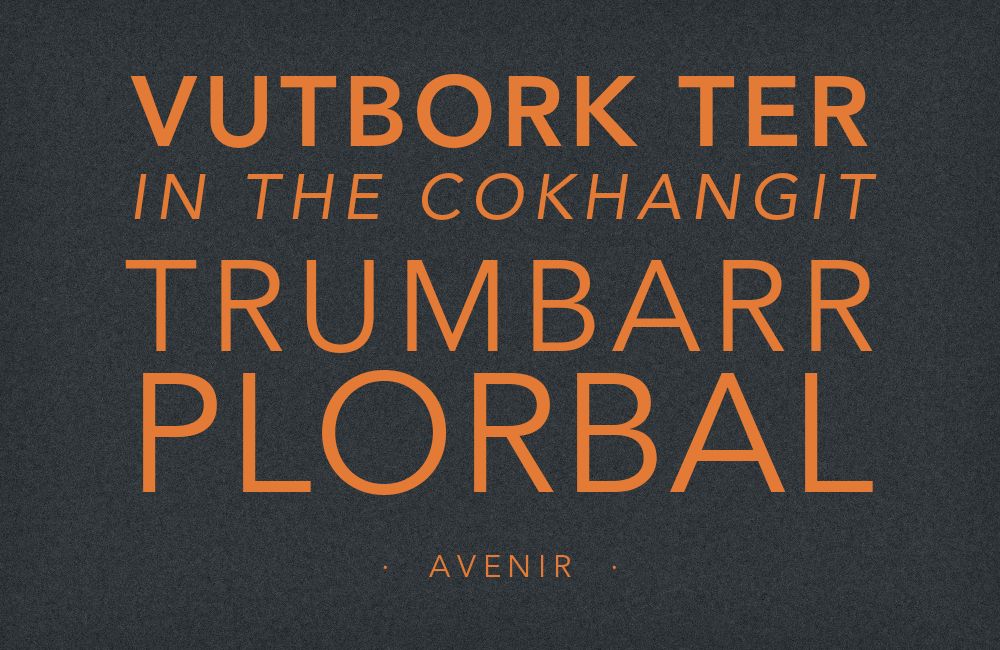
Avenir pairs great with Garamond, Georgia and Baskerville. All 15 pairings are shown below in real rendered specimens, with the reason each one works.
What fonts go with Avenir? Adrian Frutiger’s geometric sans is warm where Futura is severe and disciplined where humanist sans-serifs get chatty — a balance that makes it unusually easy to live with and unusually easy to pair badly.
Frutiger released Avenir in 1988, and the name is the point: avenir is French for “future,” an open acknowledgement of Futura sixty years earlier. But where Futura chases the circle and the straight line without compromise, Avenir bends. Its verticals are fractionally heavier than its horizontals, its ascenders are shortened for setting text, and its lowercase carries just enough optical correction to stay comfortable at paragraph sizes. The result is a geometric sans you can actually read at length — the compromise Frutiger spent a career refining, first in Univers and later in the signage face that carries his own name.
That reasonableness is exactly what makes pairing tricky. Avenir has no strong flavour to react against, so partners chosen for contrast alone tend to look arbitrary beside it. The combinations that work do one of two things: they supply the historical warmth Avenir’s engineered geometry deliberately leaves out, or they share its underlying circular skeleton and differ only in detail. Here are 15 fonts that pair well with Avenir, each chosen for what it brings to that particular problem.
1. Garamond
An old-style serif with calligraphic stroke variation, angled stress and small humanist proportions — everything Avenir’s engineered circle-and-line construction deliberately leaves out. That is precisely why it works. Garamond supplies typographic warmth that goes back to the sixteenth century as body text while Avenir handles anything structural: headings, navigation, labels, data. The pairing is a standard for a reason, and it survives at almost any scale because the two faces are never competing for the same job. Best in book-like contexts — long essays, catalogues, institutional print — where a reader settles in.
2. Georgia
Matthew Carter drew Georgia for screens at a time when screens were terrible, and the decisions still hold: chunky serifs that survive rasterisation, a large x-height that keeps small text legible, and open apertures that resist blurring. Paired with Avenir it produces a clean, undramatic division of labour — Avenir for interface chrome, headings and navigation, Georgia for the paragraphs. There is nothing showy about this combination, which is the point. It is a workhorse pairing for blogs, documentation and content sites.
3. Baskerville
Baskerville is a transitional serif: crisper than Garamond, more rational, with sharper terminals and higher contrast. Beside Avenir it reads as considered rather than antique. There is a practical bonus here too — Baskerville ships with macOS alongside Avenir itself, so on Apple platforms the pairing is available system-wide with no licensing to arrange and no webfont to load. That makes it a genuinely useful default for documents, presentations and internal design systems, not just a theoretical recommendation. Set Baskerville at 17–19px for paragraphs and leave Avenir to the headings, labels and captions.
4. Century Schoolbook
Century Schoolbook was drawn for a textbook publisher, and it shows in the best way: heavy strokes, wide open counters, and generous spacing engineered for readers who cannot afford ambiguity. Set beneath Avenir’s light geometric headlines it carries long-form body text without any of the weight mismatch that thinner serifs suffer next to a geometric sans. The pairing has an academic steadiness to it — annual reports, university sites, long explanatory features. Keep Avenir for headings, navigation and captions, and let Century Schoolbook do the reading work at 17 to 19 pixels.
5. Rockwell
Rockwell is a geometric slab built on rounded, near-circular bowls, with heavy rectangular serifs bolted on. Its geometry runs close enough to Avenir’s own circular construction that a headline can shift from sans to slab without the layout feeling like it changed its mind, though the two faces were not drawn to a shared skeleton. The slab adds weight and blunt authority Avenir cannot supply on its own. Good for editorial headers, sports and outdoor brands, and print work that needs impact at large sizes without resorting to a display face.
6. Bembo
Bembo is Monotype’s 1928-1929 revival, with its roman style based on a design cut around 1495 by Francesco Griffo for Venetian printer Aldus Manutius, which is roughly as much historical weight as a typeface can carry. Its calligraphic roots and moderate contrast read as literary and trustworthy — a direct counterweight to Avenir’s twentieth-century industrial geometry. Use Bembo for extended reading and Avenir for everything structural around it. Best in publishing, museum and academic contexts, where the implied provenance is part of the message rather than decoration. Set Bembo at 11–12pt in print and reserve Avenir for headings, captions and folios.
7. Didot
Didot’s hairline serifs and extreme thick-thin contrast pull the eye straight to fashion editorial — the register of Vogue mastheads and perfume advertising. Against that drama, Avenir’s even-weight geometry becomes genuinely useful: it recedes. Set Didot large for headlines and pull quotes, and let Avenir handle captions, standfirsts and body copy where Didot’s thin strokes would disappear entirely. The contrast in stroke modulation is the whole argument for this pairing, and it collapses if Didot is set below about 24 pixels. Display only, without exception.
8. ITC Charter
Matthew Carter designed Charter for low-resolution output, giving it sturdy strokes, open counters and minimal fine detail to lose. Those constraints make it excellent at small sizes and in poor printing conditions, which is exactly where Avenir is least useful. Set Charter for dense body text and footnotes while Avenir handles display type and interface elements. A practical, unglamorous pairing for technical documentation, reference material and anything destined for cheap paper. Set Charter at 9–10pt for footnotes and 11–12pt for running text, with Avenir a size or two larger above it.
9. Bitter
Bitter is a contemporary slab built specifically for comfortable on-screen reading — sturdy rectangular serifs, moderate contrast and a generous x-height tuned for pixel grids. Against Avenir it introduces just enough texture to break up long stretches of screen text without shifting the page’s register. The two share a low-contrast, evenly weighted feel, so the combination stays quiet. Suited to blogs, product documentation and editorial sites where readers scroll for several minutes at a time. Set Bitter at 17–18px for body copy and keep Avenir at heading and interface sizes above it.
10. ITC Lubalin Graph
Lubalin Graph is Avant Garde with slabs added, which means it is drawn on the same rounded, circular bowls as Avenir’s lowercase. The two share their underlying geometry even though one carries serifs and the other does not — an unusually close structural match that lets them alternate without any visible seam. Herb Lubalin’s face brings a distinctly 1970s confidence to headlines while Avenir stays neutral below. Effective in editorial design, record sleeves and any brand system deliberately reaching for that period.
11. Gill Sans
Gill Sans is a humanist sans; Avenir is a geometric one. Eric Gill’s letterforms are calligraphic where Frutiger’s are constructed — a two-storey lowercase g, proportions drawn from Roman inscription rather than the compass. Set Gill Sans for headlines and Avenir for text and the pair reads as two related voices rather than one repeated. Handle with care: at similar sizes and weights they compete instead of complementing. Keep a clear size gap — Gill Sans at 32px and above, Avenir at 16–18px for text.
12. Raleway
Raleway is an elegant grotesque with wide letterforms and thin weights. Matt McInerney drew it as a thin display face, and Pablo Impallari and Rodrigo Fuenzalida expanded the family; its stylistic alternates lean toward geometric sans forms. It sits close enough to Avenir to feel related and far enough to be distinguishable — which is a narrow line to walk. Reserve it for display sizes where its refinement registers, and let Avenir anchor the body underneath at a more even weight. The pairing suits fashion, architecture and portfolio sites where restraint is the whole aesthetic and neither face should dominate.
13. Bebas Neue
Bebas Neue is all-caps, tightly condensed, and has nothing of Avenir’s roundness — the contrast in both width and case does the work. Where Avenir is open and evenly proportioned, Bebas is vertical and compressed, so a headline in Bebas over Avenir body copy reads as a shout followed by a calm explanation. Strong for posters, event material, and anything that needs a loud entry point. It has no lowercase, so it can only ever be the headline; that limitation makes the hierarchy decision for you.
14. Cinzel
Cinzel’s capitals derive from Roman inscriptional lettering — wide, evenly proportioned, chiselled rather than penned. Confined to display sizes and short settings, it lends Avenir’s geometric warmth a sense of classical permanence, which suits ceremonial and premium contexts. It has no true lowercase worth using for text, so treat it strictly as a title face over an Avenir foundation. Wedding material, certificates, heritage brands and luxury packaging are its natural territory. Set Cinzel at 28px and above, tracked slightly open, with Avenir carrying every size below that.
15. ITC Souvenir
Souvenir is soft, rounded, and almost entirely without stroke contrast — a 1914 serif, redrawn by Ed Benguiat in the 1970s, that has spent decades being unfashionable and has come back around. That warmth plays against Avenir’s cool restraint rather than competing with it: the two share a rounded underlying skeleton, so nothing clashes, but Souvenir supplies personality Avenir has none of. Use it sparingly and at display size, where its ball terminals and swelling curves read as deliberate rather than dated. Strong for lifestyle brands, food packaging, and anything that needs to feel handmade without abandoning a modern grid.
Avenir is neutral enough to sit beside almost anything, so the pairing decision is which missing quality to supply: historical warmth, editorial drama, or textural weight. That neutrality means the decision rarely fails outright and rarely sings by accident. Ask what Avenir is not supplying, and choose the partner that supplies it.
Then test the combination at the sizes you will actually publish. Didot is unusable small, Bebas Neue is unusable long, and Gill Sans fights Avenir at matched weights. The pairing that looks right in a specimen may not survive the layout, and the only reliable way to know is to set real copy and look at it.